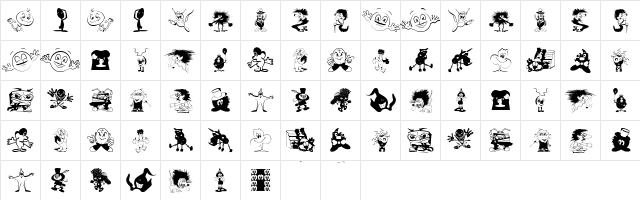
Offbeats Regular Font Preview
Offbeats Regular
Design Context for Offbeats Typeface
Offbeats is a composed and adaptable typeface that performs quietly and consistently across a wide range of design contexts.